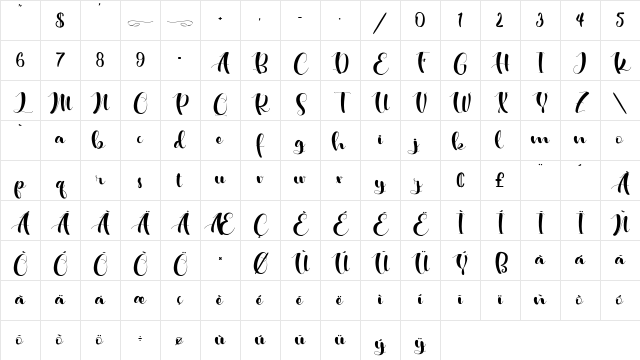
Double Jacket is a composed and adaptable typeface that performs quietly and consistently across a wide range of design contexts.
Pro Tip: Use Double Jacket in both headline and body roles to test its range before committing to a single application.